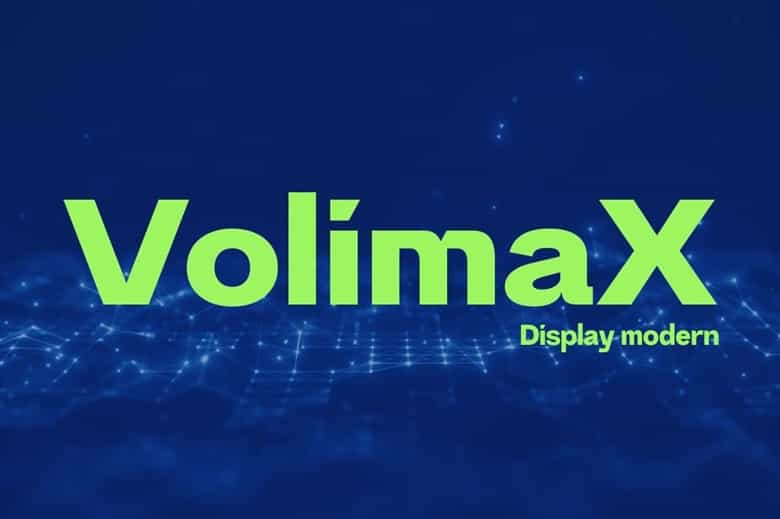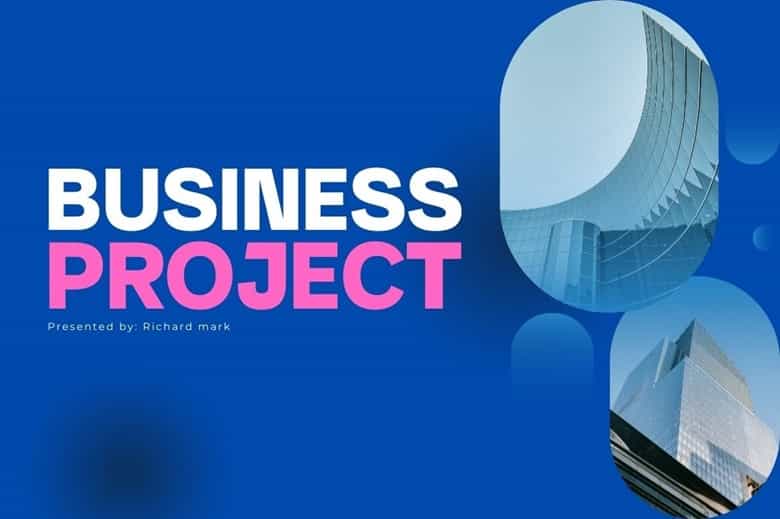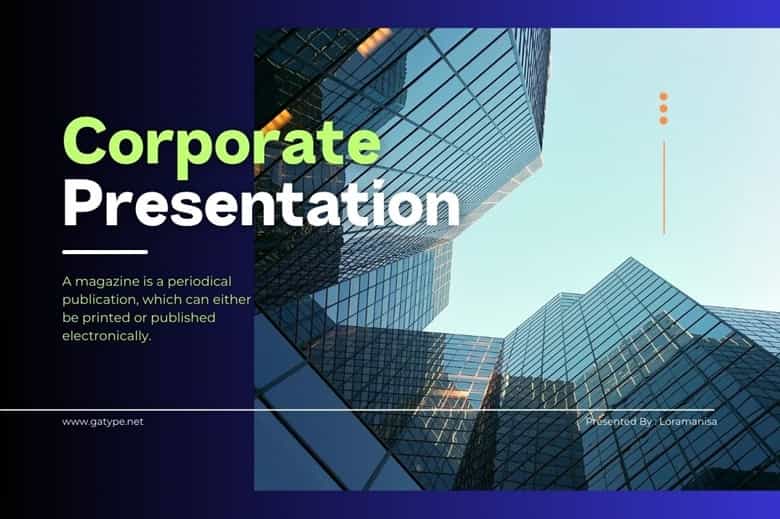
Volimax is a display sans typeface with simplification of sharp modern bold type with large forms. The typeface as a whole steady in relation to order and harmony concerning letters. It’s best suitable for Instagram, poster, web design, magazine, logo, and product.